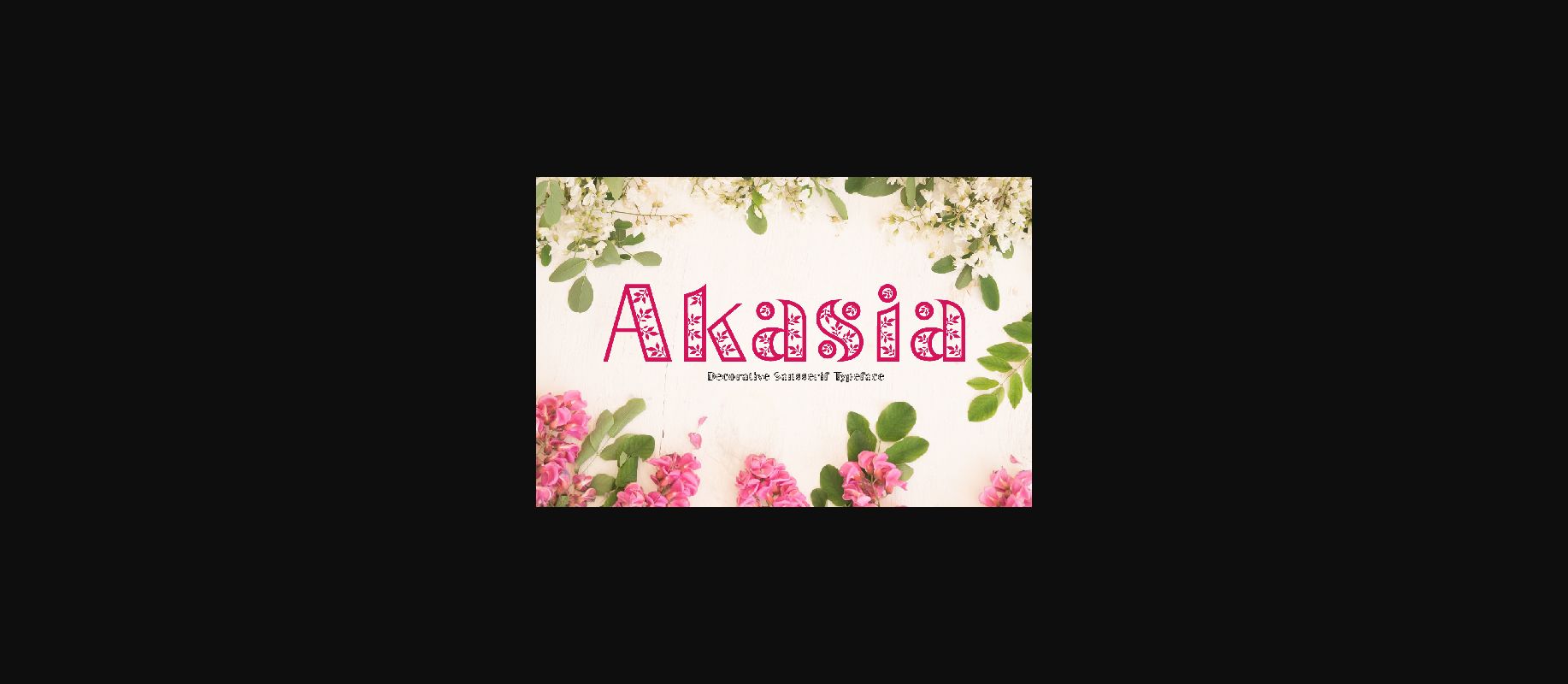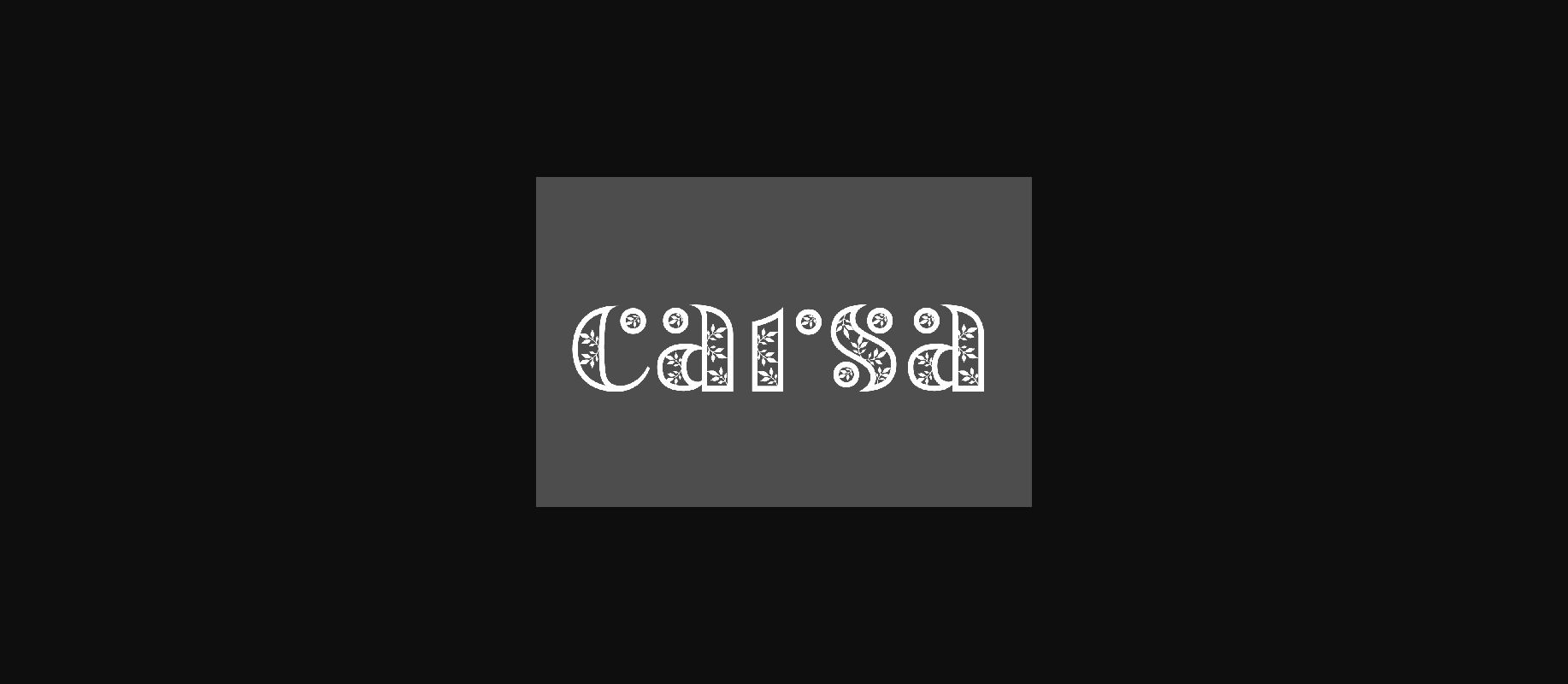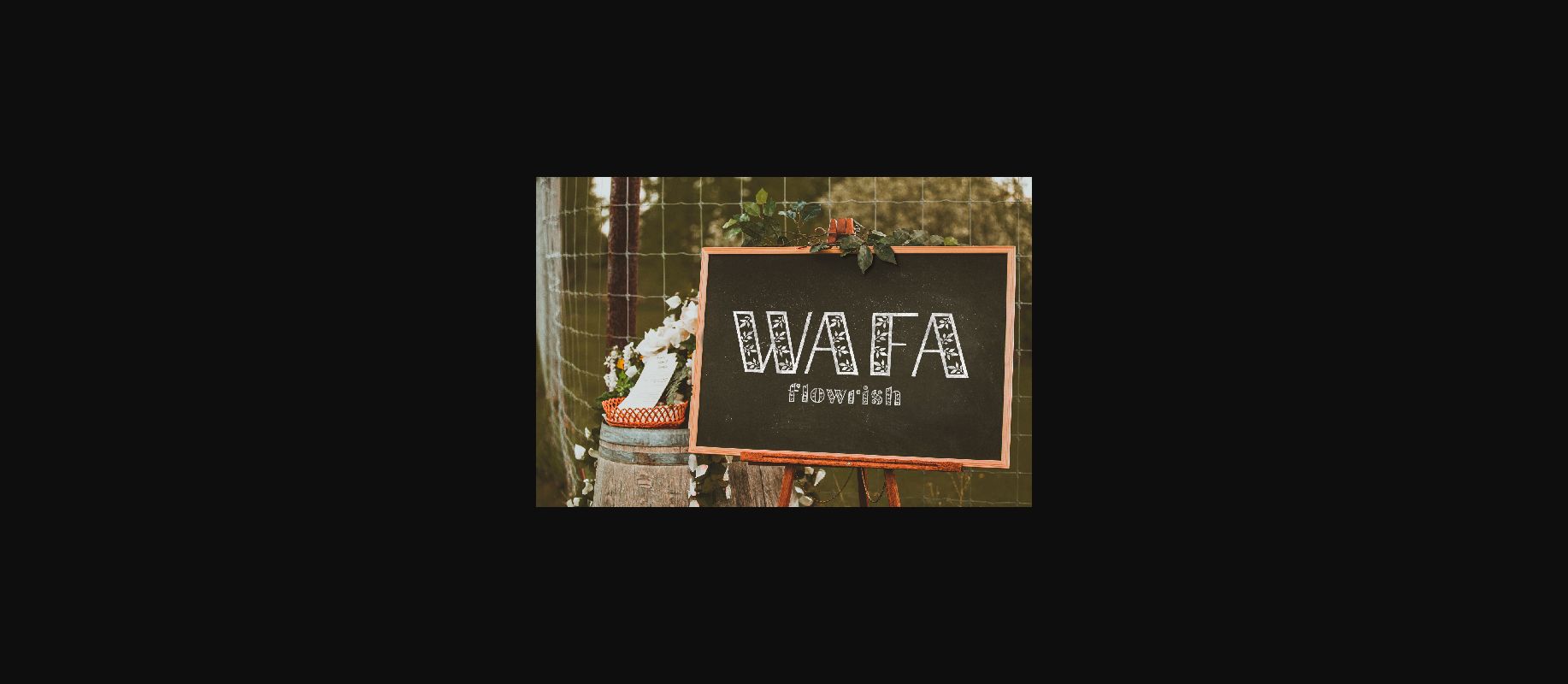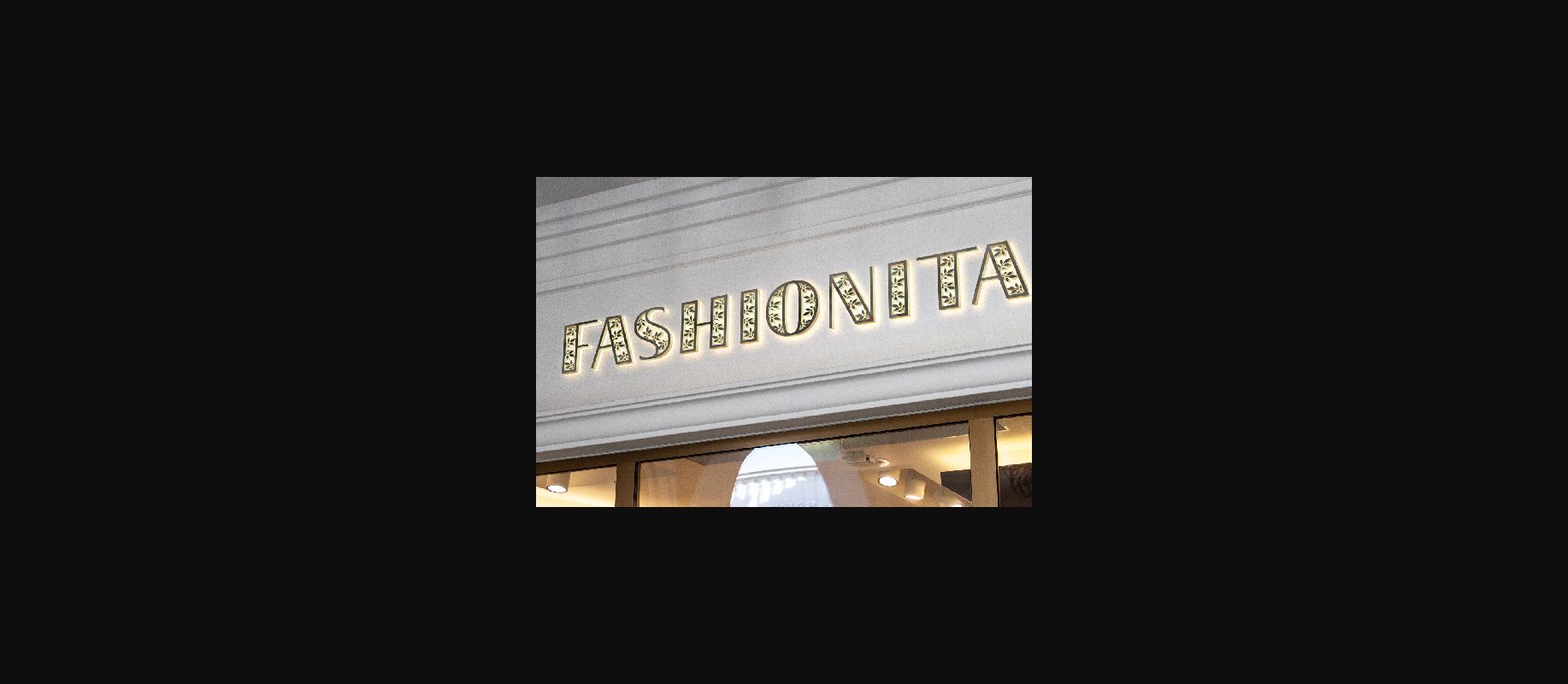
About Akasia Font
The Akasia is a botanical typeface inspired by the shapes of leafs. It has a simple and natural feel and can be used to create a super unique logo, card, invitation, and much more!